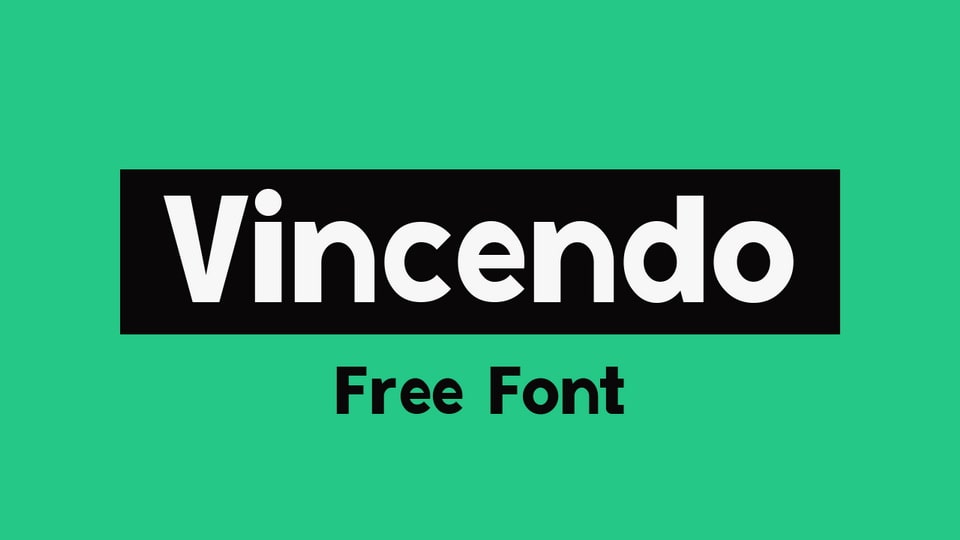
Download Vincendo font, a modern geometric sans-serif typeface that strikes a bold balance between sharp, clean lines and subtle irregularities in its shapes.